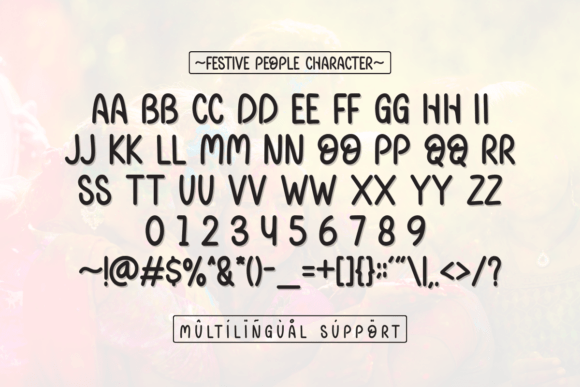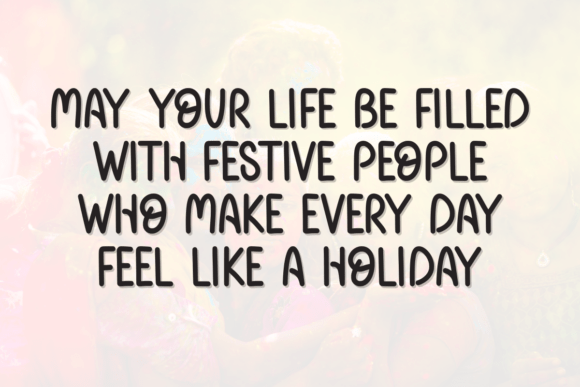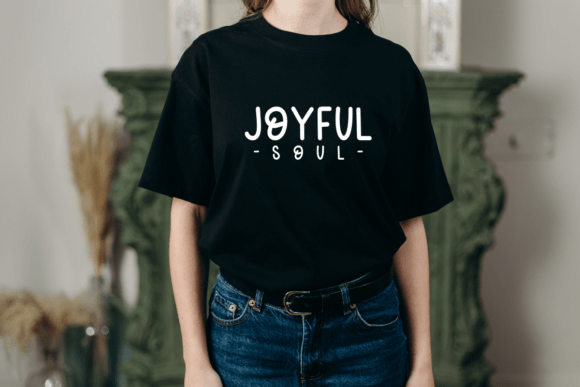
Introduction to Festive People Font
Have you ever been in the midst of brainstorming a creative project, only to find yourself stuck on the perfect font to bring your vision to life? This is where the magic of a high-quality design resource like the Festive People Font comes in.
Imagine a clean, minimalist sans serif font that exudes a sense of joy and festivity, perfect for capturing the essence of a special occasion or everyday delight. With its transparent background and versatility in use, this font is an absolute game-changer for designers looking to create spectacular and interesting designs.
Whether you’re crafting a wedding invitation, designing a gift label, or simply looking to add a touch of whimsy to a quote, the Festive People Font is an invaluable asset in your design arsenal, available for a free download that will take your creative projects to the next level.
Key Features of Festive People Font
- High-quality, vector-based design for a crisp and clear appearance, ideal for use in various creative projects.
- Unique, festive design elements, such as holly leaves, snowflakes, and other holiday-themed graphics, add a touch of whimsy to any project.
Honest Review: Festive People Font
I recently had the chance to work with the Festive People Font, and I must say it’s been a delightful experience. As a designer, I’m always on the lookout for high-quality design resources to enhance my creative projects.
- What works well: ✨ The font’s playful, hand-drawn style adds a touch of whimsy to any design, making it perfect for festive or holiday-themed projects. The transparent background feature also allows for seamless integration with various design elements.
However, I do have a few limitations to note:
- ⚠️ Limited character set: The font only includes a limited set of characters, which may not be ideal for longer texts or professional applications.
- ⚠️ Not suitable for formal designs: While the font is perfect for festive or creative projects, it may not be the best choice for formal or professional designs where a more serious tone is required.
Overall, I’m impressed with the Festive People Font’s potential and flexibility. It’s a great addition to any designer’s toolkit, especially for free. With a little creativity, you can unlock its full potential and create truly unique and eye-catching designs.
The Festive People Font is suitable for various creative projects, including holiday cards, invitations, and event graphics. It’s also ideal for designing logos, business cards, and other marketing materials.